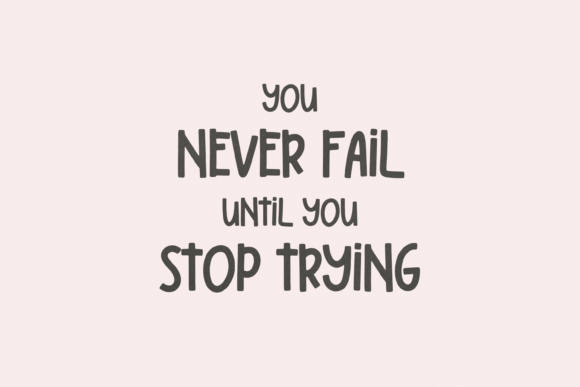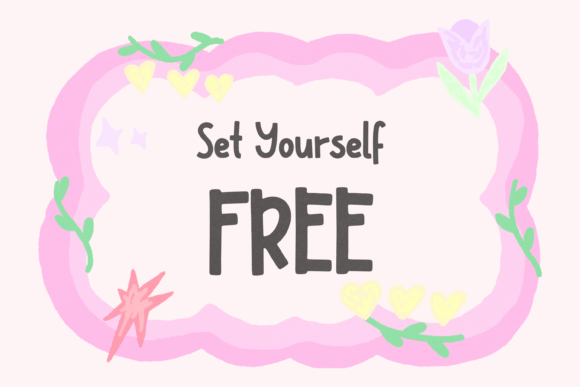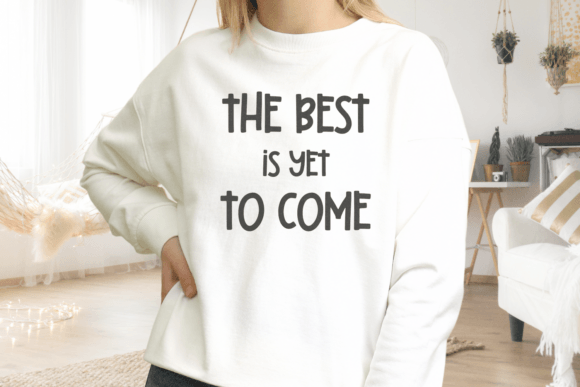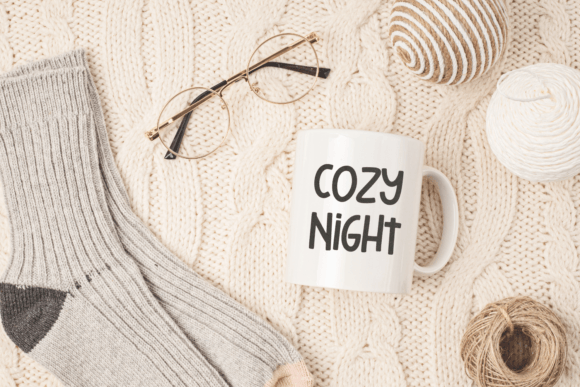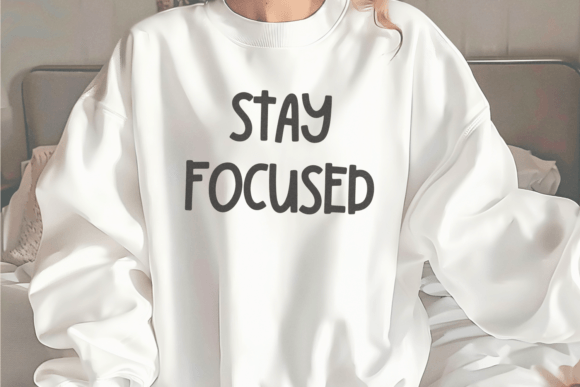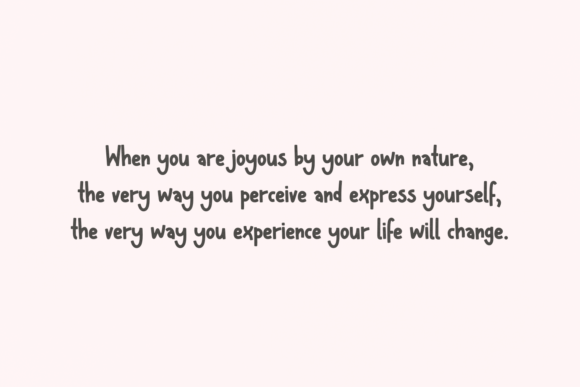
Hamburger Font: The Perfect Handwritten Font for Creative Projects
Are you a designer or crafter looking for a unique and friendly font to bring your creative projects to life? Look no further than the Hamburger Font! This adorable handwritten font is perfect for creating quotes, logos, and lettering products that will make your designs stand out.
What Makes Hamburger Font So Special?
The Hamburger Font is a cute and friendly handwritten font that is designed to add a personal touch to any creative project. Its playful and approachable style makes it perfect for a wide range of applications, from t-shirts and cards to tote bags, mugs, and pillowcases.
One of the key features that sets Hamburger Font apart is its PUA (Private Use Area) encoding. This means that you can easily access all glyphs and swashes, giving you complete creative control over your designs. With Hamburger Font, you can add flourishes and embellishments to your lettering, making it truly unique and eye-catching.
Uses for Hamburger Font
The versatility of Hamburger Font is one of its greatest strengths. Here are just a few ideas for how you can use this amazing font:
- Quotes and Sayings: Use Hamburger Font to create inspiring quotes and sayings for social media, posters, or printables.
- Logos and Branding: Create a custom logo or brand identity with Hamburger Font that is both playful and professional.
- T-Shirts and Apparel: Design unique and eye-catching t-shirts, hoodies, and other apparel with Hamburger Font.
- Cards and Stationery: Add a personal touch to your cards, invitations, and stationery with Hamburger Font.
- Tote Bags and Home Decor: Use Hamburger Font to create custom tote bags, mugs, pillowcases, and other home decor items.
Why Designers and Crafters Love Hamburger Font
So, why do designers and crafters love Hamburger Font? Here are just a few reasons:
- Easy to Read: Hamburger Font is clear and easy to read, making it perfect for quotes, sayings, and other text-based designs.
- Highly Versatile: Hamburger Font can be used for a wide range of creative projects, from logos and branding to apparel and home decor.
- Unique and Eye-Catching: Hamburger Font has a unique and playful style that will make your designs stand out from the crowd.
- PUA Encoded: With PUA encoding, you can easily access all glyphs and swashes, giving you complete creative control over your designs.
Tips for Using Hamburger Font
Here are a few tips for getting the most out of Hamburger Font:
- Experiment with Colors: Hamburger Font looks great in a wide range of colors, so don’t be afraid to experiment and find the perfect color scheme for your design.
- Add Swashes and Flourishes: With PUA encoding, you can easily add swashes and flourishes to your lettering, making it truly unique and eye-catching.
- Mix and Match Fonts: Hamburger Font pairs well with a wide range of other fonts, so feel free to experiment and find the perfect combination for your design.
In conclusion, Hamburger Font is a cute and friendly handwritten font that is perfect for designers and crafters looking to add a personal touch to their creative projects. With its PUA encoding, playful style, and high versatility, Hamburger Font is sure to become a favorite in your font collection. So why wait? Download Hamburger Font today and start creating unique and eye-catching designs that will make your projects stand out!